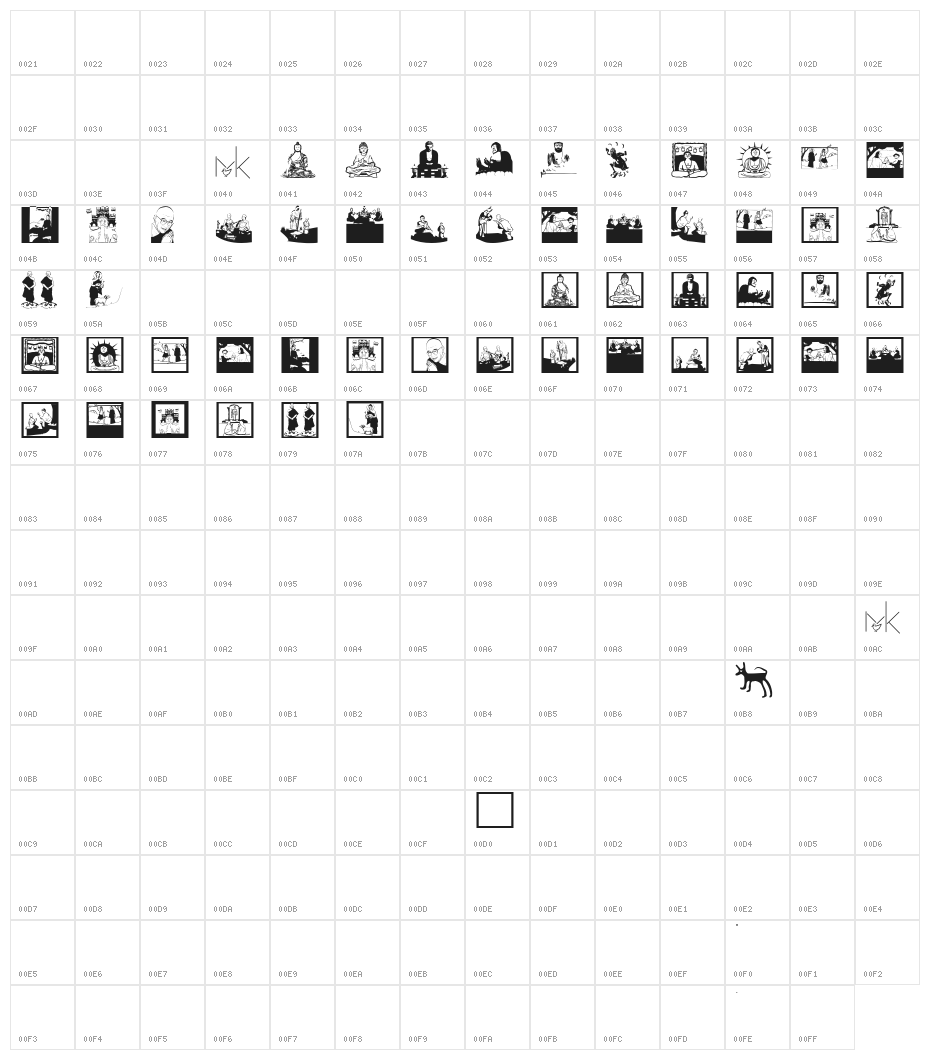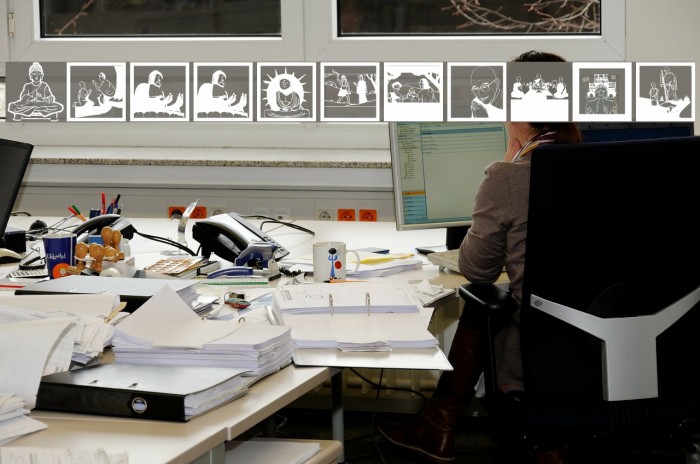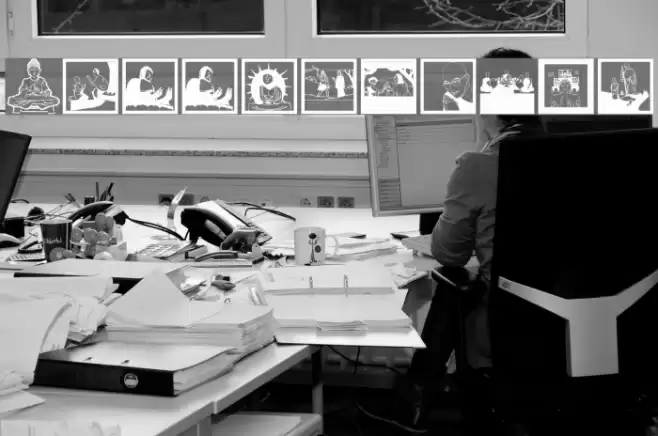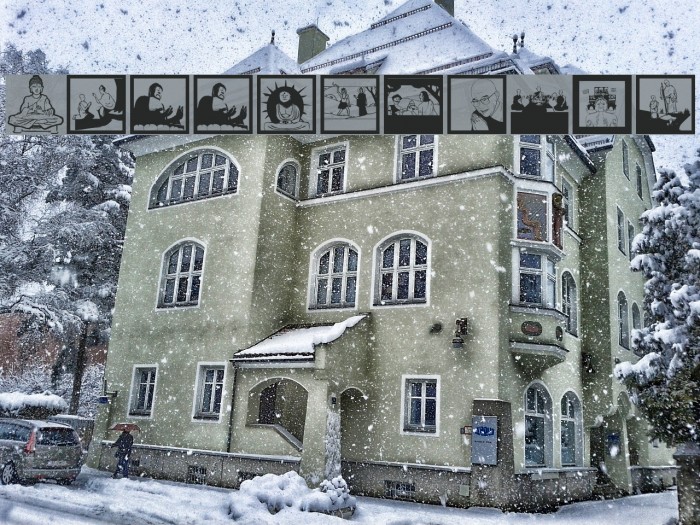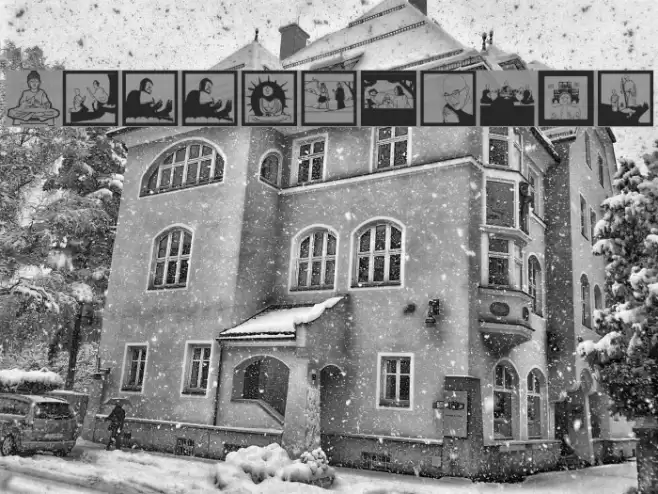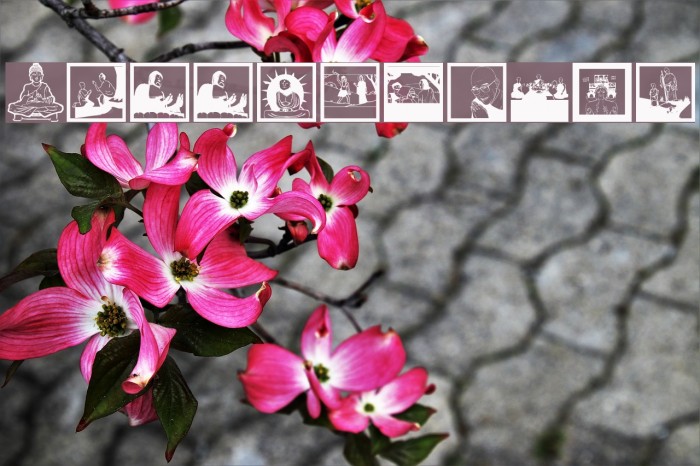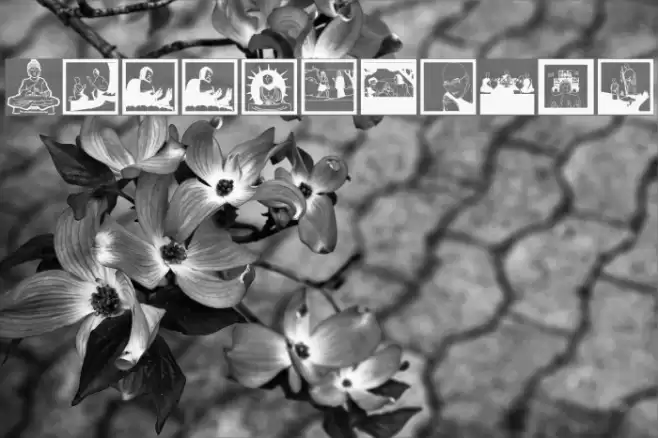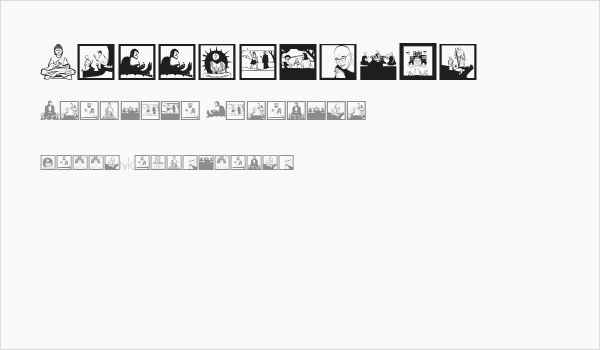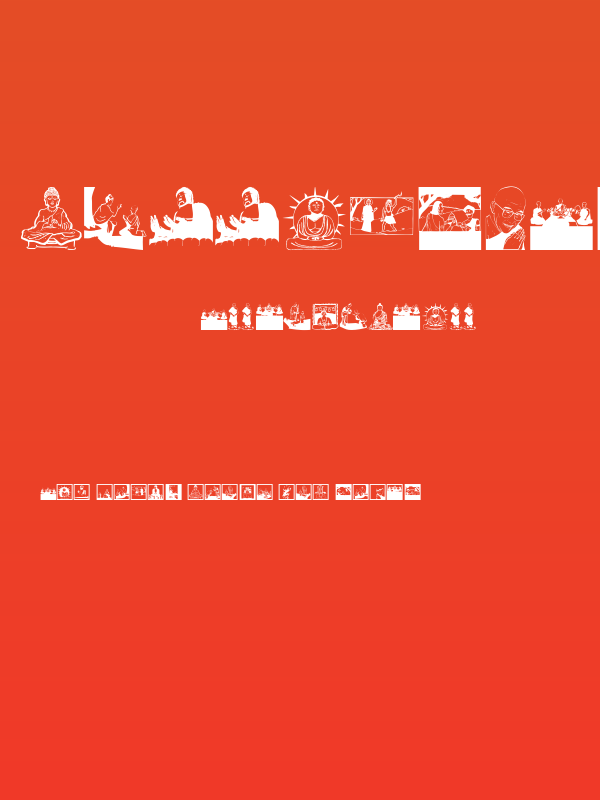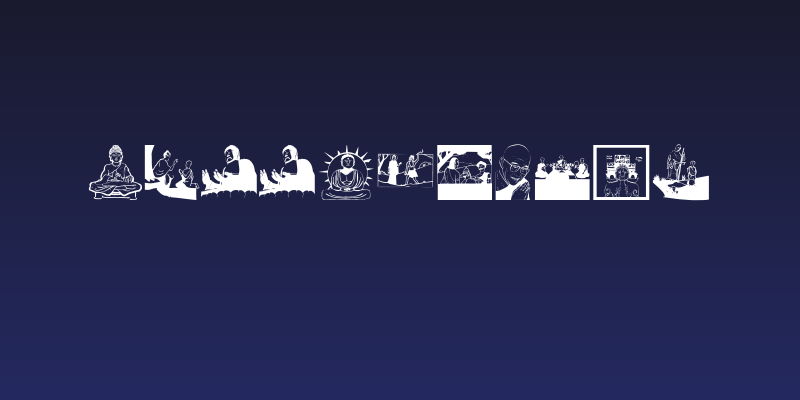
BuddhismTwo Font
BuddhismTwo Description
A decorative display set featuring detailed black-and-white illustrations of Buddhist figures, monks, and scenes, each character represented by a unique pictorial icon rather than traditional letterforms.
| Overall Style | Decorative, Illustrative, Thematic |
| Use Case | Icons, Decorative elements, Themed graphics |
| Proposed Projects | Educational materials, themed posters, spiritual event graphics, decorative headings, iconography. |